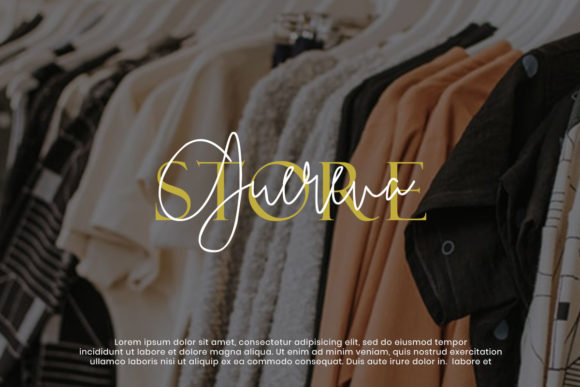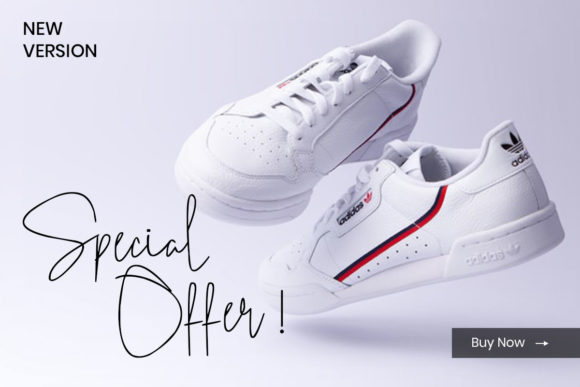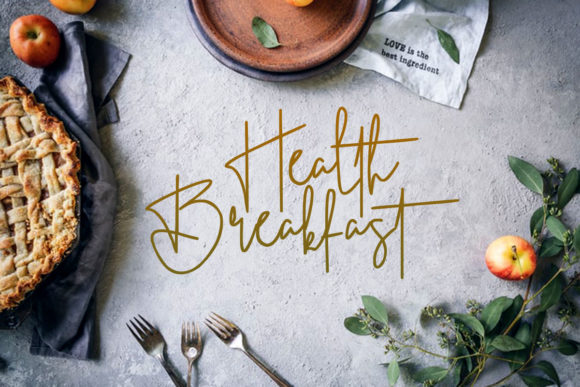
HomeScript FontsSetandar Font Script Fonts Setandar Font FacebookXPinterestWhatsApp Setandar Font Poster 2 Setandar Font Poster 3 Setandar Font Poster 4 About Setandar Font Setandar is a signature modern font. It’s perfect for logos, advertising and much more! DOWNLOAD ON CREATIVE FABRICAThis font is sold and delivered by Creative Fabrica. Font Canyon may earn a commission if you buy through this link. People also explored Preditch Font Nadine Font Playtime Font Lazy Monday Font Happy Married Font Over Font Orchid Can Cooler Mockup Banana Font Luminaire Font 320 0 TagsSetandar Font Previous articleSfattii FontNext articleArabella Font LEAVE A REPLY Cancel reply Comment: Please enter your comment! Name:* Please enter your name here Email:* You have entered an incorrect email address! Please enter your email address here Website: Save my name, email, and website in this browser for the next time I comment. Personal Use Free Bally Girl Personal Use Free Read more about this font Sunflower Personal Use Free Read more about this font Rocketto Personal Use Free Read more about this font Feather Script Personal Use Free Read more about this font BLOG Best Fonts for YouTube Videos: Make Your Thumbnails Stand Out Best Fonts for YouTube Videos: Make Your Thumbnails Stand Out Choosing the right font can make a massive difference in how your YouTube videos perform.... How to Cut Any Font on Cricut: Convert a Font to SVG (Free) Free vs Paid Fonts: Why Investing in Premium Fonts Is Worth It 5 Fonts That Will Dominate Design Trends in 2026